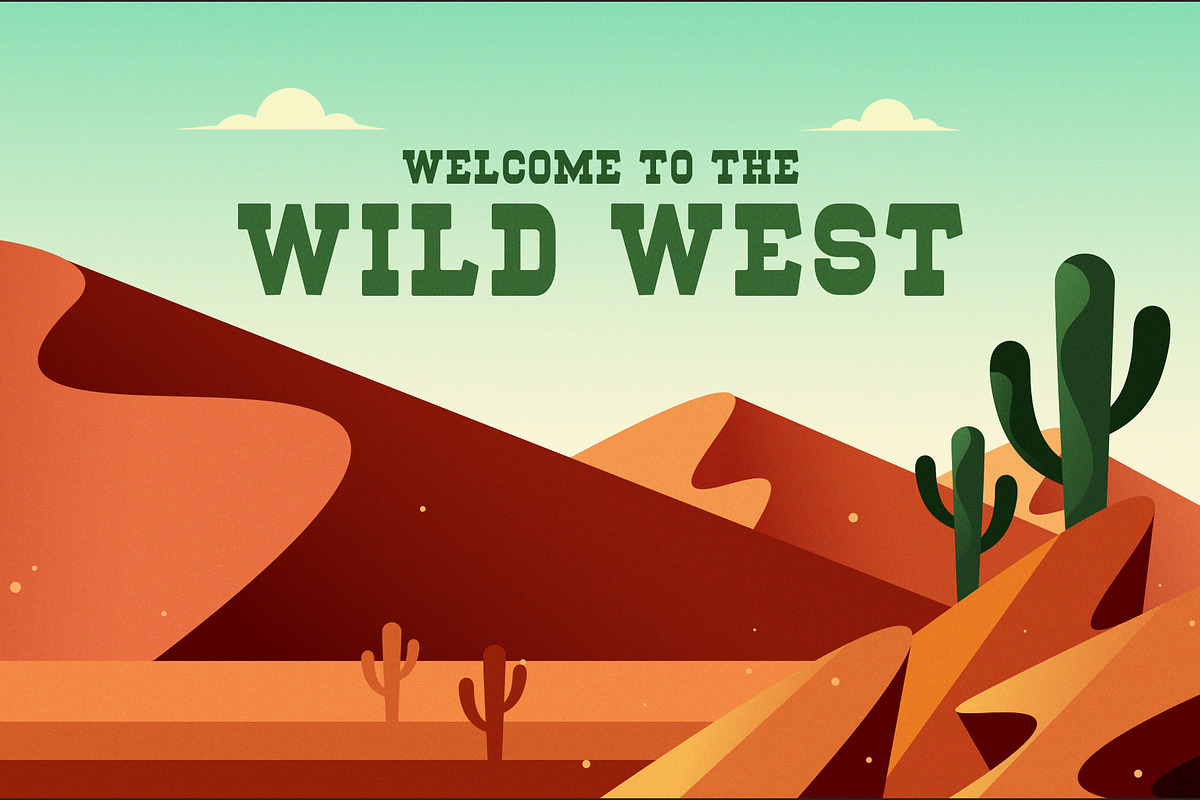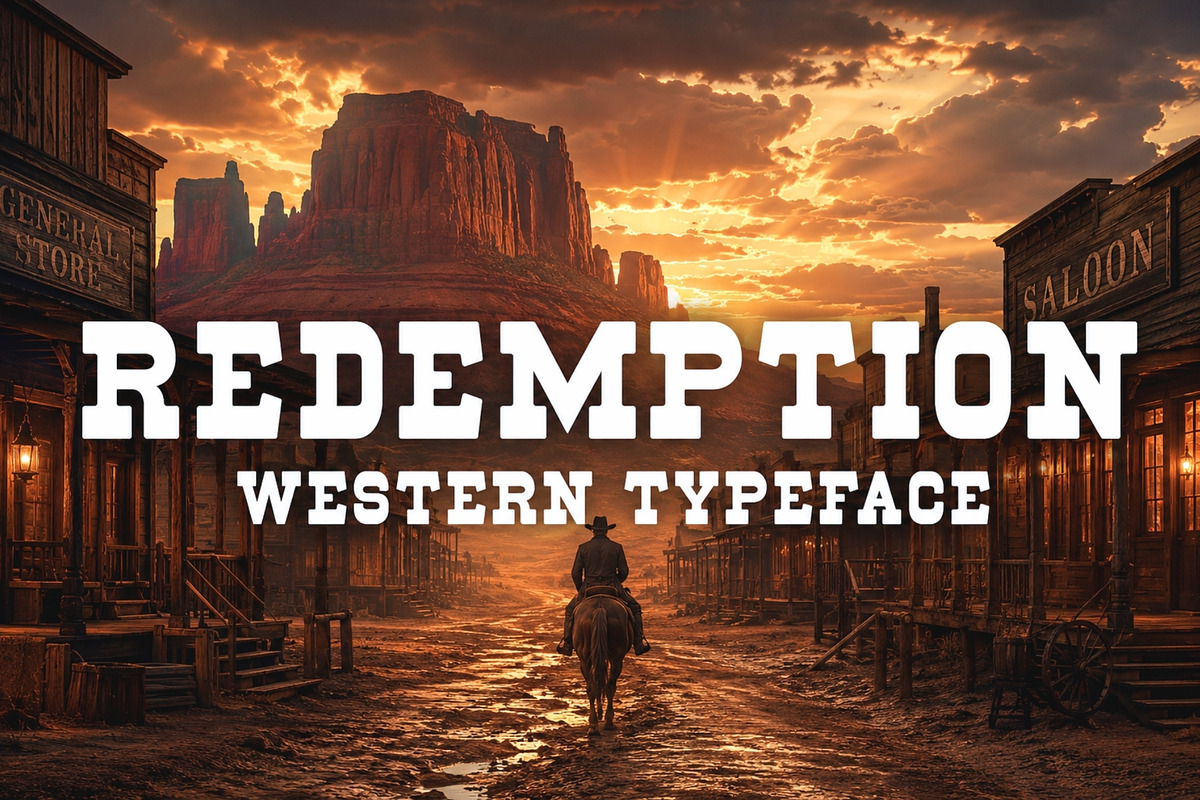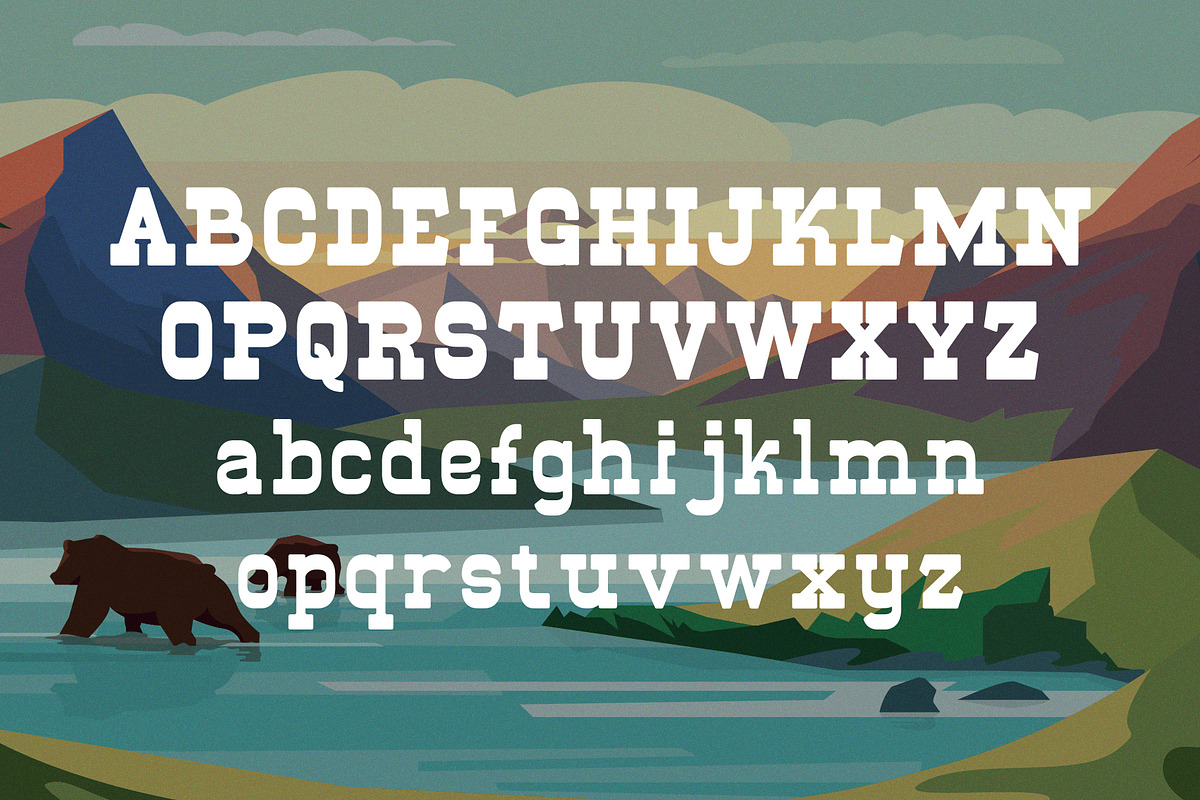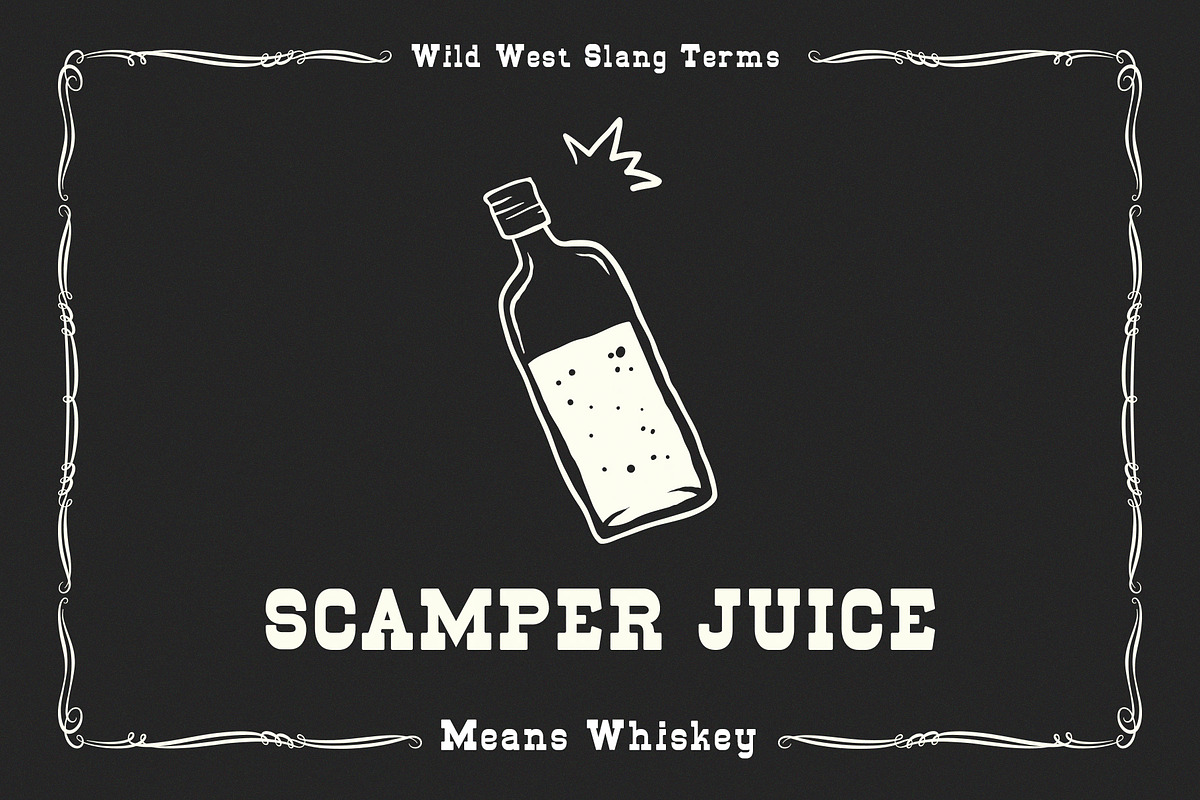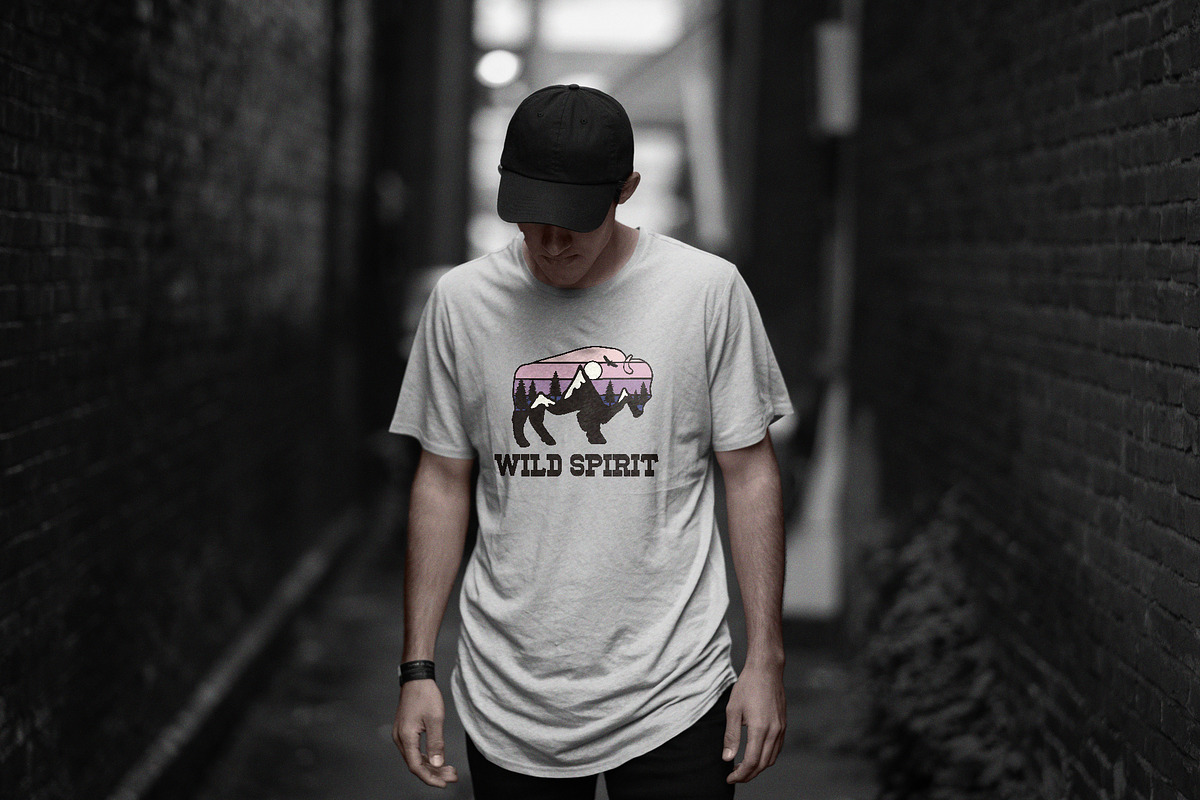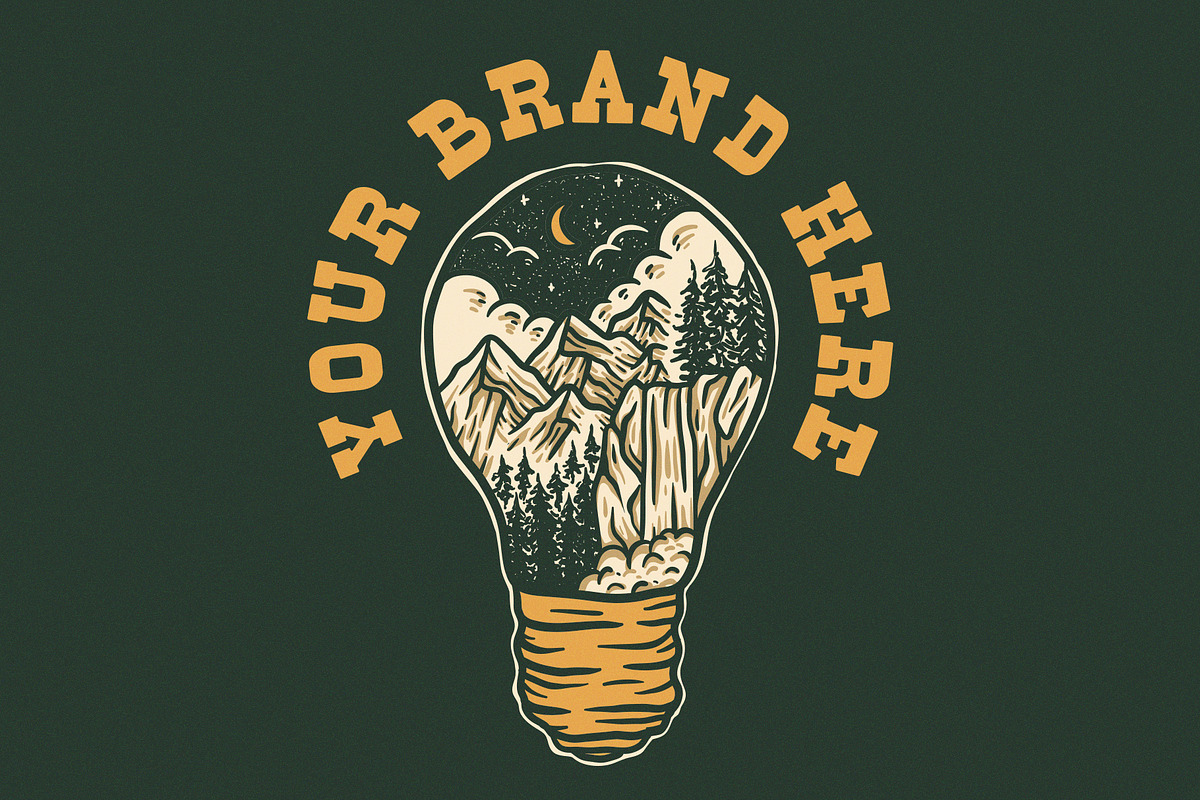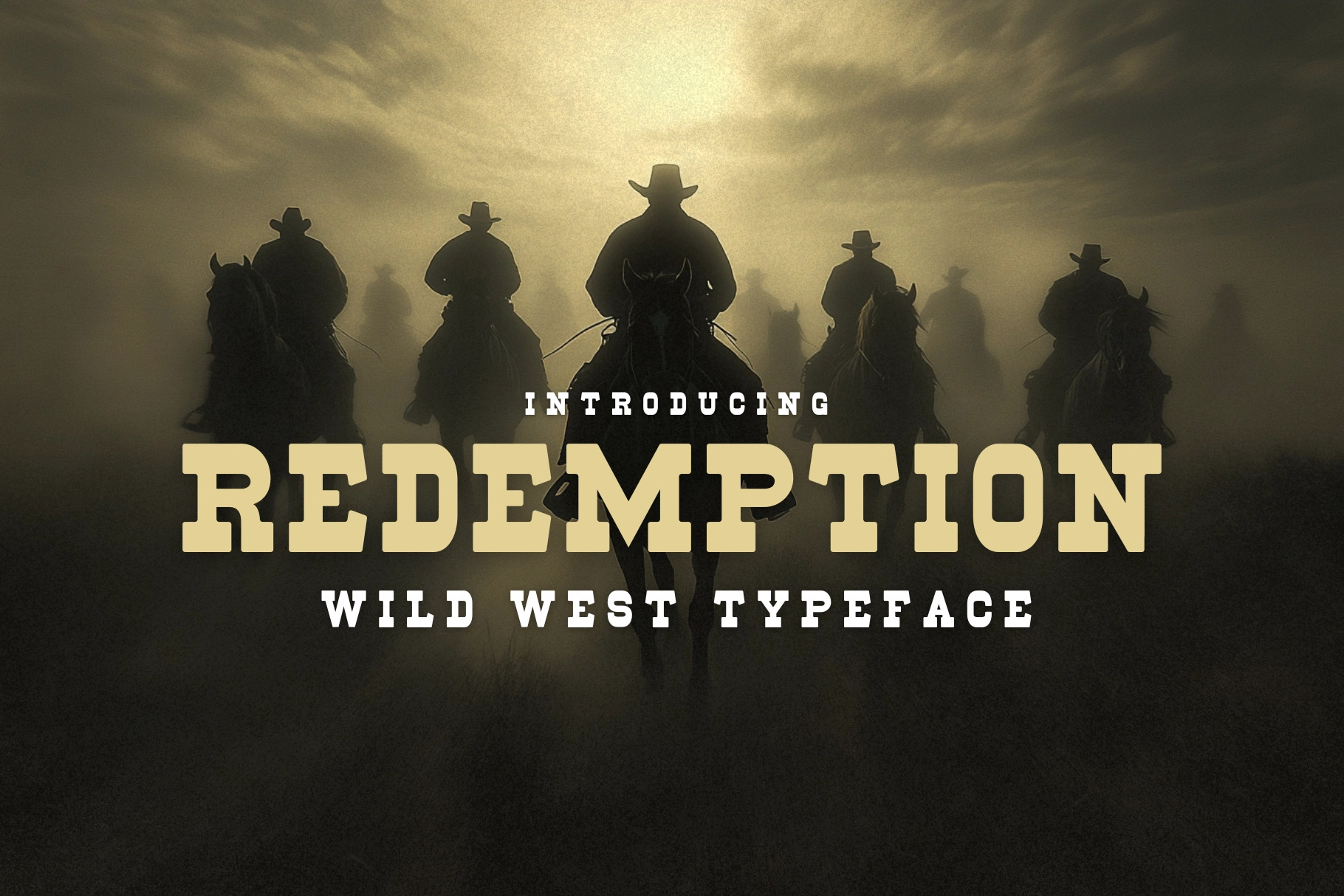
Redemption - Wild West Typeface
Introducing Redemption, a strong slab serif typeface inspired from cowboys and western style. The font comes in uppercase and lowercase which you can creatively combine in your design project.
Redemption is perfect for logotypes, badges, store front, headlines, sub headlines, and even body text. This typeface is recommended for western style, antiques, vintage vibe, and retro pop art.